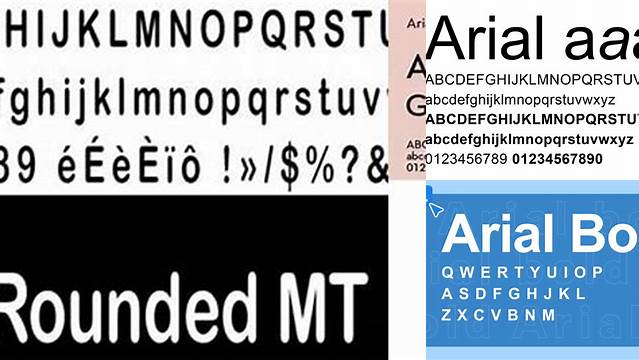
Arial Bold On Google Fonts: A Comprehensive Guide
Hey guys! Ever wondered how to get that crisp, clean Arial Bold look using Google Fonts? You're in the right place! This guide dives deep into everything you need to know about using Arial Bold in your projects, from understanding its history and significance to implementing it flawlessly on your website or app. Let's get started!
1. What is Arial Bold and Why Use It?
So, what exactly is Arial Bold? Well, it's the bolder, more assertive sibling of the classic Arial typeface. It's a sans-serif font, meaning it doesn't have those little decorative strokes (serifs) at the ends of letters. This makes it super readable, especially in digital formats. Using Arial Bold can instantly add emphasis and clarity to your text, making headings and important information pop. It’s a workhorse font, reliable and professional, making it a go-to choice for many designers and developers. Arial Bold is often chosen for its legibility, clean lines, and versatility in various design contexts. Whether you're designing a website, creating marketing materials, or working on a presentation, Arial Bold offers a strong and impactful visual presence. Its bold weight ensures that the text stands out, making it ideal for headlines, subheadings, and any content you want to draw attention to. Arial Bold also maintains a consistent appearance across different platforms and devices, ensuring that your message is conveyed clearly and accurately to your audience. Overall, using Arial Bold can enhance the readability and visual appeal of your projects, making it a valuable asset in your typographic toolkit.
2. The History and Evolution of Arial Font
The story of Arial is actually pretty interesting. It was designed in 1982 by a team at Monotype, led by Patricia Saunders and Robin Nicholas. The goal? To create a typeface that was metrically compatible with the popular Helvetica font, but with its own distinct personality. While it shares similarities with Helvetica, Arial has subtle differences that give it a unique feel. Over the years, Arial has become one of the most widely used fonts in the world, thanks to its inclusion in Microsoft Windows. This widespread adoption has cemented its place in the design world. The font's evolution has seen it adapted for various platforms and uses, ensuring its continued relevance in the digital age. Understanding the history of Arial helps appreciate its significance as a staple in typography. Its journey from its creation to its widespread use highlights its importance in the field of visual communication. Arial's design, though influenced by Helvetica, has its own nuances that contribute to its unique character. These subtle differences set it apart and make it a versatile choice for a wide range of applications. Arial's bold variant further enhances its impact, making it a powerful tool for emphasizing key information and creating visual hierarchy in designs.
3. Why Arial Bold Matters for Web Design
In the world of web design, Arial Bold is a real MVP. It provides excellent readability, ensuring your website content is easily digestible. Plus, it's a system font, meaning it's pre-installed on most devices, reducing load times and improving website performance. This is crucial for user experience! When a font is readily available on a user's system, it eliminates the need to download font files, resulting in faster page loading times. This speed advantage can significantly enhance user engagement and reduce bounce rates. Moreover, Arial Bold's clean and professional appearance makes it suitable for a wide range of web design styles, from corporate websites to personal blogs. Its versatility allows designers to create cohesive and visually appealing layouts that effectively communicate their message. Arial Bold also plays a vital role in establishing a clear visual hierarchy on a webpage. By using it for headings and subheadings, designers can guide the reader's eye and highlight important sections of content. This helps users quickly grasp the main points and navigate the site more efficiently. Overall, Arial Bold's combination of readability, performance benefits, and versatility makes it an indispensable asset for web designers.
4. Arial vs. Helvetica: Understanding the Differences
Arial and Helvetica are often compared, and for good reason – they look pretty similar at first glance! But there are key differences. Arial has slightly more rounded terminals and a more uniform stroke weight, while Helvetica has a more geometric and structured appearance. These subtle differences can impact the overall feel of your design. Understanding these distinctions can help you choose the right font for your specific needs. Helvetica's design is known for its neutrality and clarity, making it a favorite among designers who value a clean and modern aesthetic. Arial, on the other hand, offers a slightly softer feel due to its rounded terminals. This can make it a more approachable option for certain applications. The choice between Arial and Helvetica often comes down to personal preference and the specific context of the design. While Helvetica is often considered the gold standard for sans-serif fonts, Arial remains a popular choice due to its widespread availability and readability. Ultimately, both fonts are valuable tools in a designer's arsenal, and understanding their nuances can help you make informed decisions about typography. Consider the overall tone and message you want to convey when choosing between these two classic typefaces.
6. Alternatives to Arial Bold on Google Fonts
Since Arial Bold isn't directly on Google Fonts, let's explore some fantastic alternatives! Roboto, Open Sans, and Montserrat are all excellent sans-serif options that offer similar readability and a clean aesthetic. They're also free to use and easy to implement via Google Fonts. These fonts share the sans-serif characteristics of Arial, making them versatile choices for various design applications. Roboto, for example, is known for its modern and geometric design, while Open Sans offers a more humanist and friendly feel. Montserrat, with its bold and impactful letterforms, is particularly well-suited for headlines and titles. When selecting an alternative to Arial Bold, it's essential to consider the specific requirements of your project. Think about the overall tone and style you want to convey, as well as the readability needs of your audience. Experimenting with different font pairings and weights can help you find the perfect substitute that complements your design while maintaining visual consistency. Google Fonts provides a vast library of typefaces, allowing you to explore numerous options and discover fonts that align with your creative vision.
7. Implementing Arial Bold Using CSS Font Stacks
One clever way to use Arial Bold (or a similar font) on your website is with CSS font stacks. This involves listing fonts in order of preference. The browser will use the first font in the list that's available on the user's system. So, you can specify Arial Bold first, followed by a fallback like Helvetica or a Google Font. This ensures a consistent look across different devices. CSS font stacks are a powerful tool for managing font availability and ensuring your website's typography remains consistent across various platforms. By prioritizing Arial Bold and providing fallback options, you can leverage the user's local font if it's available while still ensuring a visually similar experience if it's not. This approach minimizes the need to download additional font files, which can improve page loading times and enhance the overall user experience. When constructing your font stack, it's crucial to select fallback fonts that closely resemble Arial Bold in terms of style and readability. This will help maintain the intended visual hierarchy and prevent jarring changes in typography. Experimenting with different font combinations and testing them across various browsers and devices is essential to ensure optimal results.
8. Using Font-Display for Optimal Loading
The font-display CSS property is your friend when it comes to handling font loading! It lets you control how the browser renders text while a font is loading. Options like swap or fallback can prevent the dreaded “flash of invisible text” (FOIT) and improve perceived performance. Using font-display is a best practice for web performance, as it helps avoid visual disruptions while fonts are being loaded. The swap value, for instance, instructs the browser to display text immediately using a fallback font and then swap to the desired font once it's fully loaded. This ensures that content is always visible to the user, even if there's a slight delay in font loading. The fallback value offers a more nuanced approach, allowing the browser to display the fallback font for a short period before switching to the desired font. This can help create a smoother transition and minimize the impact of font loading on the user experience. By strategically using font-display, you can optimize the perceived performance of your website and ensure that your typography enhances rather than hinders the user's experience. Experiment with different values to find the best balance between visual consistency and loading speed.
9. When to Use Arial Bold: Best Practices
So, when should you actually reach for Arial Bold? It's fantastic for headings, subheadings, and any text you want to emphasize. It's also great for body text in situations where clarity and readability are paramount. However, avoid overusing it, as too much bold text can become overwhelming. There are several key scenarios where Arial Bold truly shines. In headings and subheadings, its strong presence helps create a clear visual hierarchy, guiding the reader through the content. For body text, Arial Bold can enhance readability, especially in situations where clarity is crucial, such as legal documents or technical manuals. When emphasizing specific words or phrases, Arial Bold can effectively draw attention to key information without disrupting the overall flow of the text. However, it's essential to use Arial Bold judiciously. Overusing bold text can lead to visual clutter and make the content appear overwhelming. Strive for a balance between bold and regular text to create a visually appealing and easily digestible layout. Consider using other typographic tools, such as italics or different font sizes, to further enhance the visual hierarchy and emphasize different aspects of your content.
10. Arial Bold for Print vs. Web
Keep in mind that Arial Bold can behave slightly differently in print compared to on the web. In print, you have precise control over how the font renders. On the web, rendering can vary slightly depending on the browser and operating system. Always test your designs in both environments to ensure consistency! The nuances between print and web typography stem from the distinct characteristics of each medium. In print, factors such as ink density, paper quality, and printing resolution directly influence how fonts appear. Web typography, on the other hand, is subject to the rendering capabilities of different browsers and operating systems. This can lead to subtle variations in font appearance, such as differences in kerning, letter spacing, and overall sharpness. When designing for both print and web, it's crucial to account for these differences and test your typography across various platforms. This ensures that your message is conveyed effectively and consistently, regardless of the medium. Consider using tools and techniques that help bridge the gap between print and web typography, such as font hinting and optimized font formats. Additionally, be mindful of the specific requirements of each medium, such as color profiles for print and screen resolutions for web.
11. Pairing Arial Bold with Other Fonts
Choosing the right font pairing can make or break your design. Arial Bold pairs well with other sans-serif fonts like Open Sans or Roboto, creating a cohesive and modern look. You can also pair it with serif fonts like Times New Roman or Georgia for a more classic contrast. Experimentation is key! Font pairing is an art form that involves harmonizing different typefaces to create a visually appealing and balanced composition. When pairing Arial Bold, consider the overall tone and style you want to achieve. Pairing it with other sans-serif fonts, such as Open Sans or Lato, can create a clean and contemporary look. The contrast in weights and styles between these fonts can add visual interest while maintaining a cohesive feel. For a more classic or traditional aesthetic, you can pair Arial Bold with serif fonts like Times New Roman or Merriweather. This combination can create a sophisticated and timeless feel, but it's essential to ensure that the serif font complements Arial Bold without overshadowing it. Experiment with different font sizes, weights, and letter spacing to achieve the desired balance. Ultimately, the best font pairing depends on the specific context of your design and your personal preferences.
12. Licensing Considerations for Arial Bold
It's important to understand the licensing for Arial Bold. It's a proprietary font, meaning it's licensed rather than freely available. Typically, you'll have the rights to use it if you have a licensed copy of Windows or Microsoft Office. Always check the specific terms of your license to ensure compliance. Licensing for fonts can be complex, and it's crucial to understand the terms of use to avoid legal issues. Arial Bold, being a proprietary font, is typically included with licensed copies of operating systems or software suites, such as Windows or Microsoft Office. However, the specific terms of the license may vary depending on the version and edition of the software. Before using Arial Bold in any project, especially commercial ones, it's essential to review the licensing agreement to ensure you have the necessary rights. This may involve consulting the End User License Agreement (EULA) or contacting the font vendor directly. Pay close attention to restrictions on embedding the font in digital documents or websites, as well as any limitations on modifying or distributing the font files. Failure to comply with the licensing terms can result in legal penalties, so it's always best to err on the side of caution and ensure you have the appropriate permissions. If you're unsure about the licensing for Arial Bold, consider using open-source alternatives that offer more flexibility and fewer restrictions.
13. Arial Bold and Readability: Best Practices
Readability is king when it comes to typography! Arial Bold, with its clean and clear design, is generally very readable. However, factors like font size, line height, and contrast can impact readability. Aim for a comfortable reading experience for your users. Several factors contribute to the readability of a font, and Arial Bold is no exception. Font size plays a crucial role, as text that is too small can be difficult to read, while text that is too large can appear overwhelming. Line height, or the vertical space between lines of text, also significantly impacts readability. Adequate line height allows the reader's eye to flow smoothly from one line to the next, preventing the text from feeling cramped. Contrast between the text and the background is another essential consideration. Low contrast can make the text appear washed out and challenging to read, while excessive contrast can cause eye strain. When using Arial Bold, it's essential to optimize these factors to ensure a comfortable reading experience. Choose a font size that is appropriate for the target audience and the context of the design. Adjust the line height to create sufficient vertical spacing without making the text feel disconnected. Ensure that there is adequate contrast between the text and the background, taking into account the potential impact of color blindness or visual impairments. By paying attention to these details, you can maximize the readability of Arial Bold and create designs that are both visually appealing and accessible.
14. Arial Bold for Accessibility
Accessibility is a crucial aspect of design. Arial Bold can be a good choice for users with visual impairments, thanks to its clear letterforms and strong weight. However, always consider contrast and font size to ensure readability for everyone. Accessibility in design focuses on creating content that can be used by people with a wide range of abilities and disabilities. When it comes to typography, Arial Bold offers several advantages for accessibility. Its clear letterforms and strong weight make it relatively easy to read, even for individuals with visual impairments. However, it's crucial to consider other factors that can impact accessibility. Contrast between the text and the background is a key consideration, as low contrast can make the text difficult to read for people with low vision. Adequate font size is also essential, as smaller font sizes can be challenging for individuals with visual impairments to decipher. When using Arial Bold for accessibility, ensure that you meet the minimum contrast ratio requirements outlined in accessibility guidelines, such as the Web Content Accessibility Guidelines (WCAG). Choose a font size that is large enough to be easily read without being overwhelming. Consider providing options for users to adjust the font size and contrast settings to suit their individual needs. By prioritizing accessibility in your design, you can create content that is inclusive and usable by a wider audience.
15. Arial Bold in Branding and Logo Design
Arial Bold can be a solid choice for branding and logo design, especially if you're aiming for a clean and professional look. Its strong presence can help your brand stand out. However, it's not the most unique font, so consider how you can use it creatively to reflect your brand's personality. Branding and logo design are critical aspects of establishing a company's identity and creating a lasting impression. Arial Bold can be a valuable tool in this process, particularly when aiming for a clean, professional, and authoritative brand image. Its strong presence and clear letterforms convey a sense of stability and reliability, making it suitable for businesses that want to project a sense of trustworthiness. In logo design, Arial Bold can be used to create a bold and impactful wordmark that stands out and is easily recognizable. Its versatility allows it to be used in a variety of industries, from technology to finance. However, it's important to acknowledge that Arial Bold is a widely used font, and its ubiquity can make it challenging to create a truly unique brand identity. To overcome this, consider using Arial Bold in combination with other typographic elements, such as a distinctive color palette or a custom letterform. Explore creative ways to modify the font, such as adjusting the letter spacing or adding subtle design details, to create a logo that reflects your brand's unique personality. Ultimately, the effectiveness of Arial Bold in branding and logo design depends on how it is used and how well it aligns with the brand's overall messaging and values.
16. Common Mistakes to Avoid When Using Arial Bold
Let's talk about some common pitfalls to avoid! Overusing Arial Bold is a big one, as we've mentioned. Also, be mindful of contrast – ensure your text is easily readable against the background. And don't forget to test your designs on different devices and browsers. One of the most frequent mistakes when using Arial Bold is overusing it, leading to visual monotony and a lack of hierarchy. While Arial Bold is effective for emphasizing specific elements, using it excessively can diminish its impact and make the content appear overwhelming. It's crucial to strike a balance between bold and regular text to create a visually appealing and easily digestible layout. Another common mistake is neglecting contrast. Insufficient contrast between the text and the background can render Arial Bold difficult to read, especially for individuals with visual impairments. Always ensure that there is adequate contrast to meet accessibility guidelines and provide a comfortable reading experience for all users. Failing to test designs on different devices and browsers is another pitfall to avoid. As mentioned earlier, font rendering can vary across platforms, so it's essential to verify that Arial Bold appears as intended on various devices and browsers. This can help identify and address any potential issues before they impact the user experience. By being mindful of these common mistakes, you can use Arial Bold more effectively and create designs that are both visually appealing and accessible.
17. Tools and Resources for Working with Arial Bold
There are tons of tools and resources out there to help you work with Arial Bold! Online font pairing tools, CSS generators, and accessibility checkers can all be incredibly useful. Explore the options and find what works best for you. The digital design landscape offers a plethora of tools and resources that can streamline the process of working with Arial Bold and enhance your typographic skills. Online font pairing tools, such as FontPair and Google Fonts' font pairing suggestions, can help you identify complementary typefaces that harmonize well with Arial Bold, creating visually balanced compositions. CSS generators, like those available on websites like CSS Generator, can simplify the process of creating CSS code for implementing Arial Bold and other fonts on your website. These tools allow you to specify font properties, such as size, weight, and line height, and automatically generate the corresponding CSS code. Accessibility checkers, such as the WAVE Web Accessibility Evaluation Tool, can help you ensure that your use of Arial Bold meets accessibility guidelines and provides a comfortable reading experience for all users. These tools analyze your website or design and identify potential accessibility issues, such as insufficient contrast or inadequate font size. By leveraging these tools and resources, you can work more efficiently with Arial Bold and create designs that are both visually appealing and accessible.
18. Arial Bold and SEO: Does Font Choice Matter?
You might be wondering, does font choice impact SEO? While Google doesn't directly rank websites based on font, readability and user experience are ranking factors. Choosing a readable font like Arial Bold can indirectly boost your SEO by keeping users engaged on your site. Search engine optimization (SEO) is a multifaceted discipline that encompasses various factors that influence a website's ranking in search engine results pages. While Google doesn't explicitly rank websites based on font choice, the impact of typography on readability and user experience can indirectly affect SEO performance. Choosing a readable font like Arial Bold can contribute to a positive user experience, which is a crucial ranking factor. When users can easily read and comprehend the content on a website, they are more likely to stay engaged, explore different pages, and spend more time on the site. This positive user behavior signals to search engines that the website is valuable and relevant, which can lead to improved rankings. Conversely, using fonts that are difficult to read or visually jarring can lead to a negative user experience, resulting in higher bounce rates and lower time on site. This negative user behavior can harm a website's SEO performance. In addition to readability, font choice can also impact website loading speed, another important ranking factor. Using web fonts, such as those available on Google Fonts, can add to the page load time, particularly if multiple fonts are used. However, using system fonts like Arial Bold eliminates the need to download font files, resulting in faster loading times. By considering the impact of font choice on readability, user experience, and loading speed, you can make informed decisions that contribute to both the visual appeal and SEO performance of your website.
19. The Future of Arial Bold: Trends and Predictions
What's next for Arial Bold? It's a classic font, so it's likely to remain a staple for years to come. However, we may see it used in new and creative ways as design trends evolve. Keep an eye on how designers are incorporating it into modern projects! The future of typography is dynamic and constantly evolving, influenced by technological advancements, design trends, and changing user expectations. While Arial Bold is a classic and widely used font, its future is likely to be shaped by these factors. One trend that is expected to continue is the emphasis on readability and accessibility in web design. As websites strive to provide optimal user experiences, font choices that prioritize clarity and legibility will remain in demand. Arial Bold's clean letterforms and strong weight make it a suitable option in this context. However, designers may also explore variations and pairings to create more unique and visually engaging designs. The rise of variable fonts is another trend that could impact the future of Arial Bold. Variable fonts allow for greater flexibility and customization, enabling designers to adjust font properties, such as weight, width, and slant, along a continuous range. This technology could potentially lead to the creation of more refined and tailored versions of Arial Bold. Furthermore, the increasing use of artificial intelligence (AI) in design tools may lead to new ways of generating and manipulating fonts, potentially influencing the future of Arial Bold. AI algorithms could be used to analyze design trends and generate font pairings or variations that align with specific aesthetic preferences. Overall, while Arial Bold is likely to remain a relevant typeface in the years to come, its future will depend on how it adapts to evolving design trends and technological advancements.
20. Arial Bold in Different Design Styles
Arial Bold's versatility allows it to fit into a variety of design styles. It can look equally at home in a minimalist, modern design or a more traditional layout. Experiment with different font pairings and design elements to see how it can work for your project. The adaptability of Arial Bold stems from its neutral and clean design, which allows it to integrate seamlessly into diverse design contexts. In minimalist designs, where simplicity and clarity are paramount, Arial Bold's straightforward letterforms and strong presence can help create a visually impactful and uncluttered look. When paired with ample whitespace and a limited color palette, Arial Bold can effectively convey a sense of modernity and sophistication. In modern designs, which often incorporate bold typography and geometric shapes, Arial Bold can be used to create a bold and impactful visual hierarchy. Its strong weight and clean lines complement modern design aesthetics, conveying a sense of confidence and authority. Arial Bold can also be used effectively in more traditional layouts, particularly when paired with serif fonts. This combination can create a balanced and classic look, suitable for conveying a sense of tradition and elegance. The versatility of Arial Bold also extends to various industries and applications. It can be used in corporate branding materials, website designs, print publications, and more. To make the most of Arial Bold's adaptability, experiment with different font pairings, sizes, weights, and color combinations. Consider the overall tone and message you want to convey and choose design elements that complement Arial Bold's inherent characteristics. By carefully considering these factors, you can leverage Arial Bold's versatility to create designs that are both visually appealing and effective.
21. How Arial Bold Contributes to Visual Hierarchy
Visual hierarchy is essential for guiding the reader's eye and making your content easily scannable. Arial Bold is a fantastic tool for establishing hierarchy, particularly for headings and subheadings. Its strong weight immediately draws attention and signals importance. Visual hierarchy is a fundamental principle of design that involves arranging elements in a way that communicates their relative importance and guides the viewer's eye through the content. A well-defined visual hierarchy makes it easy for viewers to quickly grasp the main points and navigate the design effectively. Arial Bold plays a crucial role in establishing visual hierarchy, primarily through its strong weight and contrasting appearance. When used for headings and subheadings, Arial Bold immediately draws attention and signals to the viewer that these elements are of higher importance than the surrounding text. This creates a clear distinction between different sections of content, making it easier for the reader to scan and comprehend the information. The effectiveness of Arial Bold in establishing visual hierarchy stems from its ability to create a strong contrast with regular body text. By using Arial Bold for headings and subheadings and a lighter weight font for body text, designers can create a clear visual separation that guides the reader's eye through the content in a logical and intuitive manner. In addition to weight, other typographic elements, such as font size and letter spacing, can also contribute to visual hierarchy. Using larger font sizes for headings and subheadings can further emphasize their importance, while adjusting letter spacing can create a more open and inviting look. By strategically using Arial Bold in conjunction with these other typographic tools, designers can create a compelling visual hierarchy that enhances the readability and overall impact of their designs.
22. Arial Bold vs. Other Bold Sans-Serif Fonts
Arial Bold isn't the only bold sans-serif font out there! Fonts like Helvetica Bold, Roboto Bold, and Open Sans Bold offer similar functionality but with subtle differences in style. Comparing these options can help you choose the best font for your project. The world of typography is rich with options, and Arial Bold is just one of many bold sans-serif fonts available to designers. While Arial Bold is widely used and readily accessible, exploring alternatives can lead to more unique and visually compelling designs. Helvetica Bold, often considered the gold standard for sans-serif fonts, shares many similarities with Arial Bold but possesses a more geometric and structured appearance. Roboto Bold, a popular Google Font, offers a more modern and dynamic feel, with its slightly condensed letterforms and open counters. Open Sans Bold, another widely used Google Font, provides a humanist touch, with its friendly and approachable letterforms. When comparing these bold sans-serif fonts, it's essential to consider the specific characteristics of each typeface and how they align with the design's overall tone and message. Helvetica Bold, with its neutrality and clarity, is often preferred for conveying a sense of sophistication and professionalism. Roboto Bold, with its modern aesthetic, is well-suited for contemporary designs and digital interfaces. Open Sans Bold, with its humanist qualities, can create a more welcoming and engaging experience. The best choice depends on the project's unique requirements and the designer's creative vision. Experimenting with different font pairings and styles is crucial to finding the perfect typographic solution.
23. Arial Bold and Mobile Responsiveness
In today's mobile-first world, ensuring your website looks great on all devices is crucial. Arial Bold is a responsive font, meaning it scales well on different screen sizes. However, always test your designs on various devices to ensure optimal readability. Mobile responsiveness is a critical aspect of web design, as a significant portion of internet traffic originates from mobile devices. Websites that are not optimized for mobile viewing can suffer from poor user experiences, higher bounce rates, and lower search engine rankings. Arial Bold, like most web fonts, is inherently responsive, meaning it can scale and adapt to different screen sizes and resolutions. However, achieving optimal mobile responsiveness requires careful consideration of several factors. Font size is a key consideration, as text that is too small on mobile devices can be difficult to read, while text that is too large can appear overwhelming and disrupt the layout. Line height and letter spacing also play a crucial role in readability, particularly on smaller screens. Sufficient line height allows the text to breathe and prevents the lines from feeling cramped, while adequate letter spacing ensures that individual letters are easily distinguishable. When designing for mobile responsiveness with Arial Bold, it's essential to use relative units, such as percentages or ems, for font sizes and other typographic properties. This allows the text to scale proportionally with the screen size. Media queries, a CSS technique for applying different styles based on screen size or device characteristics, can also be used to adjust font sizes and other typographic settings for mobile devices. Testing your designs on various mobile devices and screen sizes is crucial to ensure optimal readability and visual appeal.
24. Using Arial Bold for Different Languages
Arial Bold supports a wide range of languages, making it a versatile choice for international projects. However, it's always a good idea to check how the font renders in different character sets and languages to ensure legibility and aesthetic appeal. Multilingual typography presents unique challenges and considerations, as different languages have varying character sets, glyph shapes, and reading directions. Arial Bold, with its extensive character set and clear letterforms, supports a wide range of languages, making it a valuable asset for international projects. However, achieving optimal typographic harmony across different languages requires careful attention to detail. When using Arial Bold for languages other than English, it's essential to check how the font renders in the specific character sets and glyph shapes of those languages. Some languages may have unique characters or diacritics that require careful handling to ensure legibility and aesthetic appeal. Kerning and letter spacing, which are the adjustments made to the space between letters, can also vary across different languages. It's important to ensure that the kerning and letter spacing are appropriate for the specific language being used to avoid visual inconsistencies or readability issues. For languages with different reading directions, such as right-to-left languages like Arabic or Hebrew, the layout and alignment of text need to be adjusted accordingly. CSS properties like direction and unicode-bidi can be used to control the reading direction of text. When designing for multilingual projects with Arial Bold, it's always recommended to test the typography with native speakers or language experts to ensure that the text is both legible and culturally appropriate.
25. Advanced Typography Techniques with Arial Bold
Beyond basic usage, there are advanced typography techniques you can explore with Arial Bold. These include kerning adjustments, letter spacing tweaks, and creative use of ligatures (if available in the font or a similar one). Experimenting with these techniques can elevate your designs. Advanced typography techniques involve fine-tuning various aspects of font appearance to achieve a polished and visually engaging result. While Arial Bold is a relatively straightforward font, exploring these techniques can enhance its impact and contribute to a more sophisticated design. Kerning adjustments, which involve adjusting the space between individual letter pairs, can improve the overall readability and visual appeal of text. While Arial Bold has built-in kerning, manual adjustments may be necessary in certain situations to address specific letter combinations that appear too close or too far apart. Letter spacing tweaks, also known as tracking, involve adjusting the uniform space between all letters in a word or phrase. Increasing letter spacing can create a more open and airy look, while decreasing it can make the text appear denser and more compact. Creative use of ligatures, which are special characters that combine two or more letters into a single glyph, can add a touch of elegance and uniqueness to your typography. While Arial Bold itself does not contain many ligatures, alternative fonts or font variations may offer ligatures that can be incorporated into the design. Other advanced typography techniques include using optical sizing, which adjusts font characteristics based on the size at which it is displayed, and employing typographic grids to create consistent and harmonious layouts. By mastering these advanced techniques, designers can unlock the full potential of Arial Bold and create typography that is both visually stunning and highly effective.
26. Arial Bold and Web Performance Optimization
We've touched on this, but it's worth reiterating: using system fonts like Arial Bold is a great way to boost your website's performance. It eliminates the need to download font files, resulting in faster loading times. Faster websites mean happier users (and better SEO!). Web performance optimization is a critical aspect of web development, as faster loading times and smoother user experiences can significantly impact website engagement, conversion rates, and search engine rankings. Using system fonts like Arial Bold is a simple yet effective way to improve web performance. System fonts are fonts that are pre-installed on users' devices, eliminating the need to download additional font files from a server. This reduces the number of HTTP requests made by the browser and minimizes the amount of data that needs to be transferred, resulting in faster page loading times. When a website uses web fonts, the browser needs to download the font files before it can render the text, which can add a significant delay to the loading process, particularly on slow internet connections or mobile devices. By using Arial Bold, which is typically available on most devices, you can avoid this delay and ensure that the text is displayed quickly and efficiently. In addition to using system fonts, other web performance optimization techniques include compressing images, minifying CSS and JavaScript files, and leveraging browser caching. By combining these techniques, you can create a website that loads quickly and provides a seamless user experience, contributing to both user satisfaction and SEO success.
27. Arial Bold in UI/UX Design
Arial Bold is a solid choice for UI/UX design, thanks to its legibility and clean aesthetic. It works well for buttons, labels, and other interface elements. However, consider the overall tone and style of your design when making your font choices. User interface (UI) and user experience (UX) design are critical aspects of creating digital products that are both visually appealing and easy to use. Typography plays a crucial role in UI/UX design, as it directly impacts the readability, legibility, and overall user experience of the interface. Arial Bold, with its clean letterforms and strong weight, is a solid choice for UI/UX design, particularly for interface elements that require emphasis and clarity. It works well for buttons, labels, menu items, and other interactive elements, ensuring that users can quickly identify and understand the purpose of each element. The legibility of Arial Bold makes it particularly suitable for interfaces that are used on a variety of devices and screen sizes. Its consistent appearance across different platforms ensures that the text remains readable, even on smaller screens or in low-resolution environments. However, when using Arial Bold in UI/UX design, it's essential to consider the overall tone and style of the design. While Arial Bold is a versatile font, it may not be the best choice for every situation. For interfaces that require a more unique or expressive aesthetic, exploring alternative fonts or font pairings may be necessary. Additionally, careful consideration should be given to font size, line height, and contrast to ensure optimal readability and accessibility.
28. Creative Ways to Use Arial Bold
Think outside the box! While Arial Bold is a classic, you can use it in creative and unexpected ways. Try pairing it with unusual fonts, experimenting with letter spacing, or using it in large, bold headlines to make a statement. The beauty of typography lies in its ability to convey both information and emotion. While Arial Bold is often considered a workhorse font due to its neutrality and legibility, it can be used in creative and unexpected ways to add personality and visual interest to designs. One approach is to pair Arial Bold with unusual or contrasting fonts. Combining Arial Bold with a script font, a display font, or a hand-drawn typeface can create a dynamic and visually engaging composition. Experimenting with letter spacing, both increasing and decreasing it, can also alter the feel of Arial Bold. Wider letter spacing can create a more open and airy look, while tighter spacing can convey a sense of urgency or intensity. Using Arial Bold in large, bold headlines is another effective way to make a statement. The strong weight of Arial Bold commands attention and can be used to create impactful headlines that grab the viewer's eye. In addition to these techniques, exploring different font weights, styles, and color combinations can further enhance the creative potential of Arial Bold. By thinking outside the box and experimenting with different typographic approaches, designers can unlock the full potential of this versatile font and create designs that are both visually compelling and highly effective.
29. Arial Bold: A Timeless Typeface
Despite trends coming and going, Arial Bold has proven its staying power. Its versatility, readability, and wide availability make it a timeless typeface that continues to be a valuable tool for designers. The world of typography is subject to trends and stylistic shifts, but certain typefaces endure the test of time, maintaining their relevance and appeal across generations. Arial Bold, with its long history and widespread use, is undoubtedly a timeless typeface. Its versatility stems from its neutral and clean design, which allows it to adapt to various design styles and applications. Whether it's used in corporate branding, website design, or print publications, Arial Bold consistently delivers a message of clarity and professionalism. The readability of Arial Bold is another key factor contributing to its longevity. Its well-defined letterforms and consistent weight make it easy to read in a variety of contexts, ensuring that the message is effectively conveyed. The wide availability of Arial Bold, as a system font on most computers, also contributes to its enduring popularity. Designers can rely on Arial Bold to be displayed consistently across different platforms and devices, minimizing the risk of font substitution or rendering issues. While Arial Bold may not be the most innovative or expressive typeface, its reliability, legibility, and versatility make it a valuable tool for designers seeking a timeless and dependable typographic solution. Its continued presence in the design landscape is a testament to its enduring appeal and effectiveness.
30. Final Thoughts and Resources for Further Learning
Well, guys, we've covered a lot about Arial Bold! Hopefully, you now have a solid understanding of how to use it effectively in your projects. Remember to experiment, explore, and always prioritize readability and user experience. For further learning, check out online typography resources, design blogs, and font pairing guides. There's always something new to discover in the world of typography! Typography is a vast and fascinating field, and there's always more to learn and explore. We've covered a wide range of topics related to Arial Bold, from its history and characteristics to its applications and best practices. Hopefully, this guide has provided you with a solid foundation for using Arial Bold effectively in your projects. However, the journey of typographic discovery is ongoing, and there are numerous resources available to help you deepen your knowledge and skills. Online typography resources, such as Typography.com and I Love Typography, offer a wealth of articles, tutorials, and inspiration. Design blogs, like Smashing Magazine and A List Apart, regularly publish articles on typography trends, techniques, and best practices. Font pairing guides, such as FontPair and Google Fonts' font pairing suggestions, can help you identify typefaces that complement Arial Bold and create visually harmonious designs. Additionally, consider exploring books on typography, attending typography workshops or conferences, and engaging with the design community online to expand your knowledge and connect with other typography enthusiasts. Remember, typography is an art and a science, and continuous learning and experimentation are key to mastering its nuances and unlocking its full potential. So, keep exploring, keep experimenting, and keep creating!